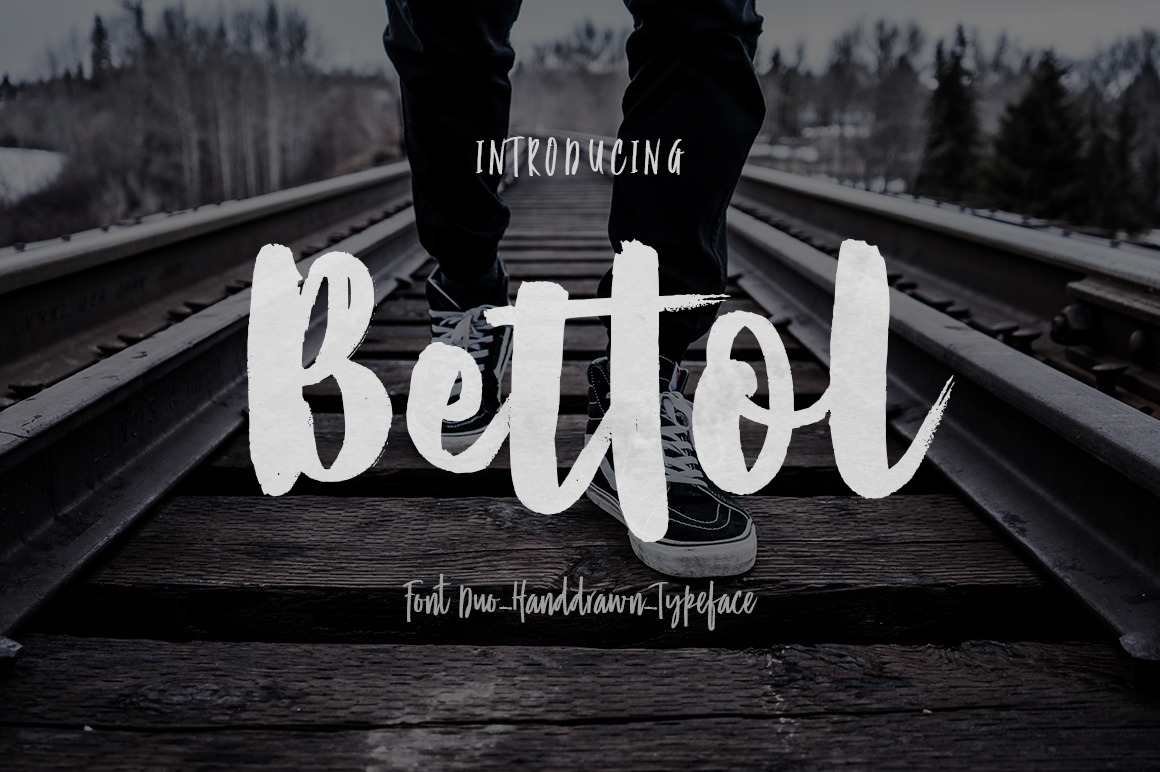
Bettol (Font Duo)
Bettol (Font Duo) is the font style handmade dancing and then live trace to have unique ., the writing style is very natural. Programs that support in this font is a Adobe Photo Shop, Adobe Illustrator, Adobe Indesign, Corel Draw and Microsoft Office.